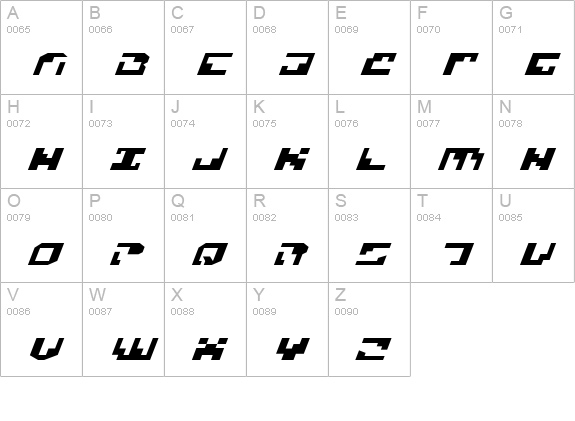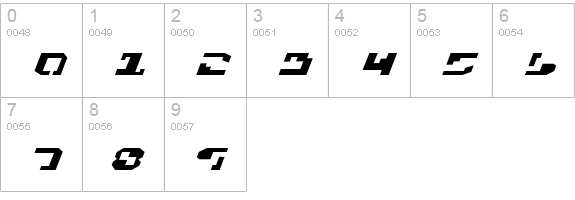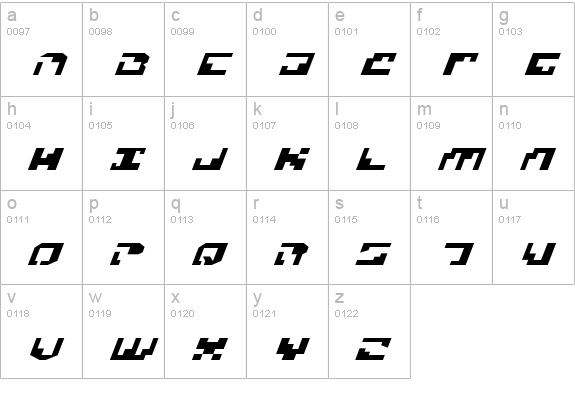
Xenophobia ExpItal font is a unique and striking typeface that exudes a sense of modernity and sophistication. Its sharp angles and sleek lines give it a futuristic appearance that is perfect for making a bold statement in any design project. The italics style adds a touch of elegance and flair, making Xenophobia ExpItal font a versatile choice for both headlines and body text. What sets Xenophobia ExpItal font apart is that it is not only visually appealing but also carries a powerful message against prejudice and discrimination. The name itself signifies the fear and hatred that can arise from xenophobia, making this font a powerful tool for promoting inclusivity and diversity in your designs. And the best part? Xenophobia ExpItal font is completely free to download at FontsMarket.com. So you can make a powerful statement against xenophobia while adding a touch of style and sophistication to your projects, all at no cost. Download Xenophobia ExpItal font today and let your designs speak volumes against bigotry and intolerance.